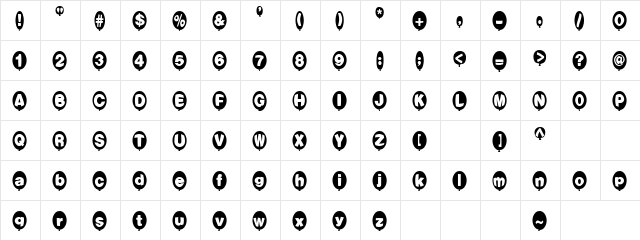
Kabuli Man Regular
Design Context for Kabuli Man Typeface
Kabuli Man is a composed and adaptable typeface that performs quietly and consistently across a wide range of design contexts.